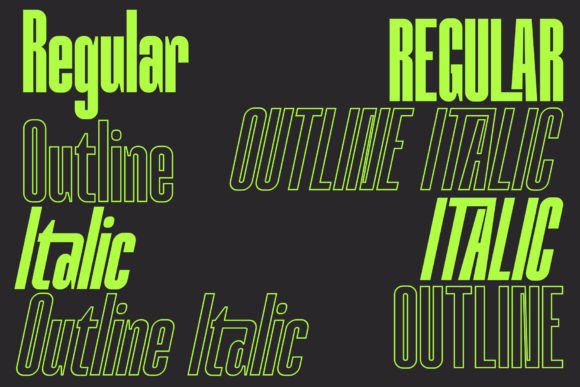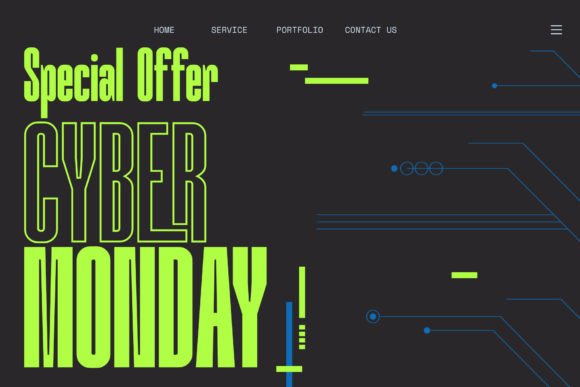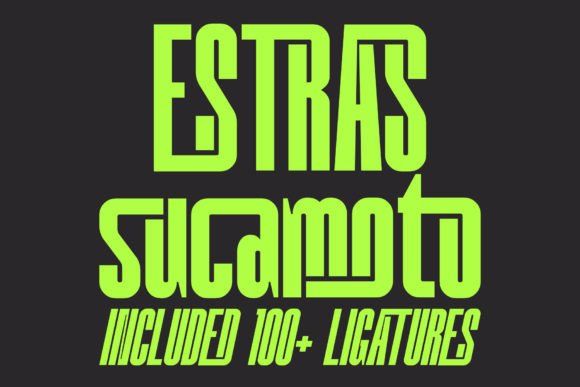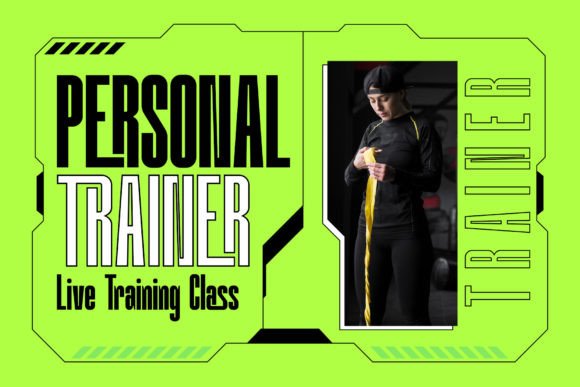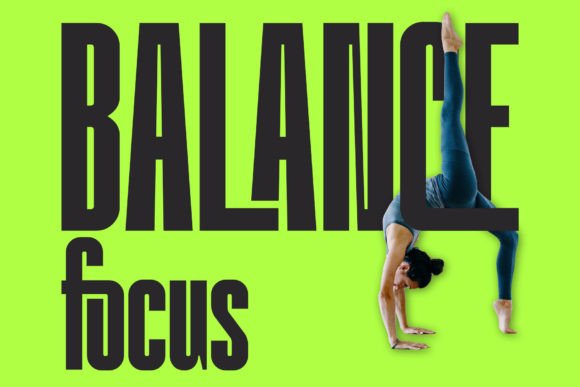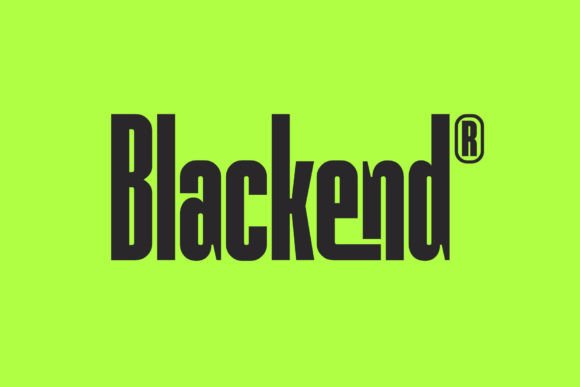
Introduction to Sabegams Font
You know that moment when a spark of creativity strikes, and you envision a stunning visual identity for your next project? That’s exactly what the Sabegams Font is designed to ignite. As a go-to design resource for creatives, Sabegams Font has been expertly crafted to deliver a unique fusion of style and functionality, making it the perfect addition to any high-quality design project.
Whether you’re working on a dynamic logo, eye-catching packaging, or sophisticated web design, the Sabegams Font is an invaluable asset that can elevate your creative project to new heights. With its sleek contours and contemporary finesse, this high-quality font is sure to make a lasting impression, all while ensuring impeccable readability.
As a free download, the Sabegams Font is an accessible and transparent design resource that can be seamlessly integrated into your next creative endeavor. Its precision-engineered condensed format makes it an ideal choice for designers seeking to maximize spatial efficiency without compromising on visual impact.
Key Features of Sabegams Font
Honest Review: Sabegams Font
I recently stumbled upon the Sabegams Font while searching for a free download to enhance my design project. I was impressed with its high quality and the transparent background made it easy to integrate into my creative project.
Here are some aspects that worked well for me:
- ✨ High-quality design: The font’s crisp and clean lines made it perfect for a professional-looking design.
- ✨ Versatile: I was able to use it for both headings and body text without any issues.
- ⚠️ Limited font weights: I found that the font was available in only a few weights, which limited my design options.
- ⚠️ Not suitable for large text: The font didn’t scale well for large text sizes, which was a bit of a disappointment.
Overall, I was impressed with the Sabegams Font and would recommend it for small-scale design projects. However, for larger projects or those requiring more font weights, you may want to consider other options.
To get the most out of the Sabegams Font, experiment with different font sizes, colors, and styles to create a unique design. You can also combine it with other design elements to create a cohesive look.
The Sabegams Font is perfect for various creative projects, including logos, posters, business cards, and social media graphics. Its transparent background makes it easy to overlay on images or other design elements.